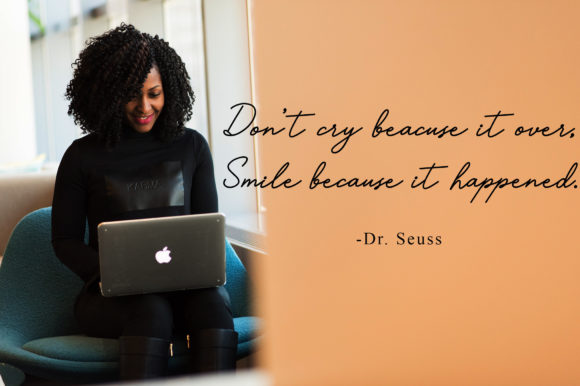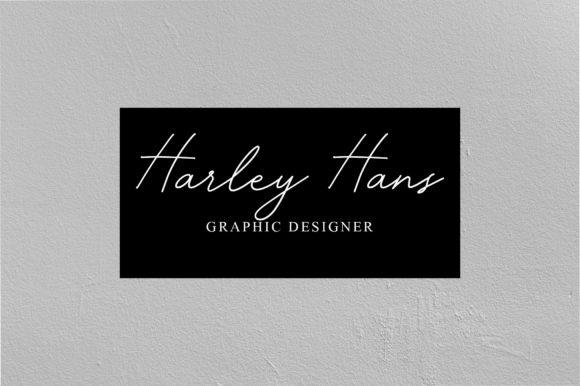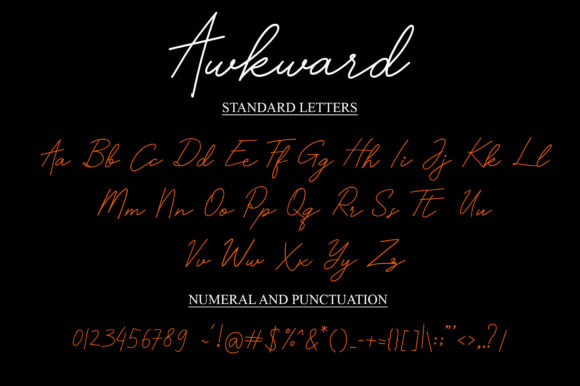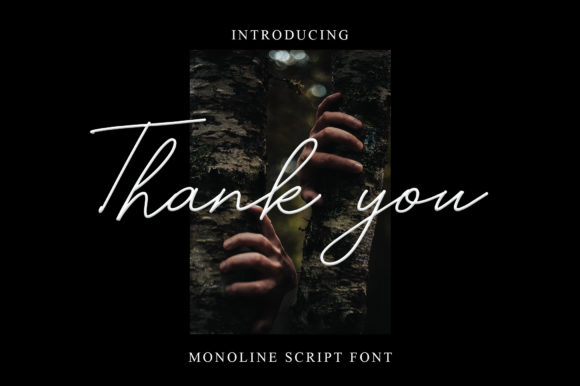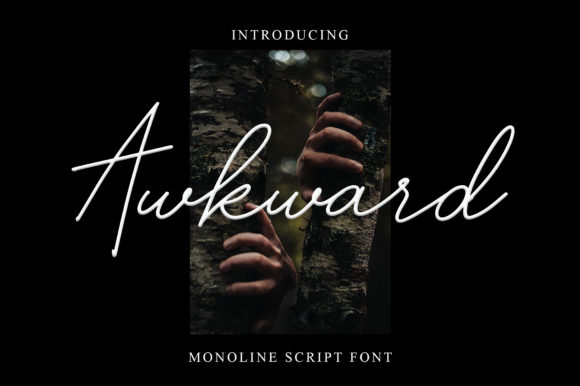
Introducing Awkward Font: Elevate Your Designs with Elegance and Flair
In the world of typography, a font can make or break a design. It’s the perfect blend of form and function, where aesthetics meet readability. For designers and crafters looking to add a touch of sophistication and whimsy to their projects, the Awkward Font is an excellent choice. This delicate, elegant, and flowing handwritten font is designed to bring a wide range of creative ideas to life.
The Beauty of Awkward Font
Awkward Font stands out for its beautiful and well-balanced characters. Each letter is crafted with care, ensuring that the font flows smoothly and elegantly across any design. This attention to detail makes it an incredibly versatile font, capable of complementing a wide pool of designs. Whether you’re working on a branding project, a wedding invitation, or a DIY craft, Awkward Font can add that special something that sets your work apart.
One of the key advantages of Awkward Font is its versatility. It can seamlessly integrate into various design contexts, from modern digital media to traditional print materials. The font’s elegant flow makes it suitable for:
- Branding and Logos: Create a lasting impression with a unique and memorable logo that speaks to your brand’s personality.
- Wedding and Event Invitations: Add a touch of class and romance to your invitations, setting the tone for an unforgettable event.
- DIY Crafts and Projects: Elevate your handmade crafts, such as journals, cards, and decorations, with a professional and stylish touch.
- Digital Media: Enhance your website, blog, or social media graphics with a font that is both visually appealing and easy to read.
Bringing Your Ideas to Life
The true power of Awkward Font lies in its ability to transform your creative ideas into visually stunning realities. Its delicate and elegant nature allows it to be the focal point of a design or subtly complement existing elements. By incorporating Awkward Font into your projects, you can:
- Evoke Emotion: The font’s flowing and elegant design can evoke feelings of sophistication, joy, and warmth, depending on the context.
- Enhance Readability: With its well-balanced characters, Awkward Font ensures that your message is conveyed clearly and effectively.
- Stand Out: In a world filled with generic fonts, Awkward Font offers a unique aesthetic that can make your designs stand out from the crowd.
Awkward Font is more than just a typeface; it’s a tool for creativity and self-expression. Its delicate, elegant, and flowing design makes it an excellent choice for designers and crafters looking to add a touch of sophistication and whimsy to their projects. With its versatility, readability, and unique aesthetic, Awkward Font can bring your most creative ideas to life. So why wait? Explore the possibilities of Awkward Font today and discover how it can elevate your designs to new heights.